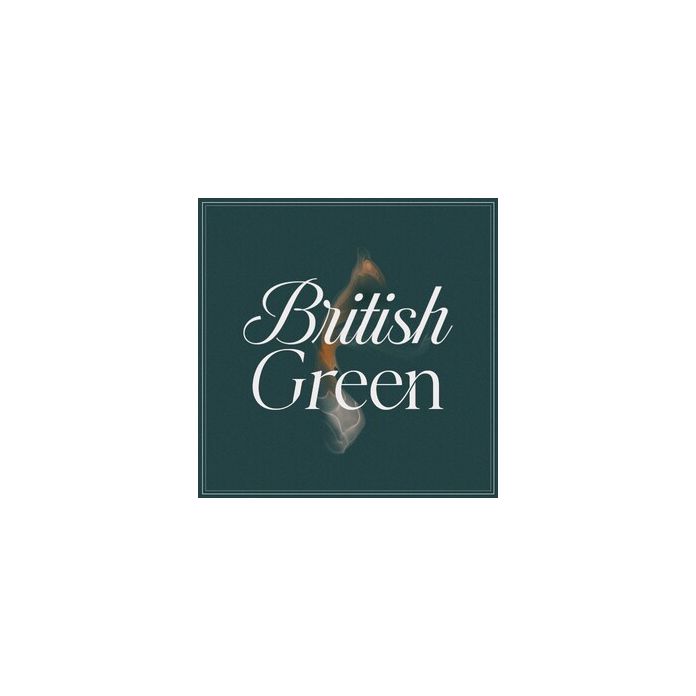
British Green is a classic serif font that is readable, smart, and stylish. Incredibly versatile, this font fits a wide pool of designs, elevating them to the highest levels. Add this font to your favorite creative ideas and notice how it makes them come alive!